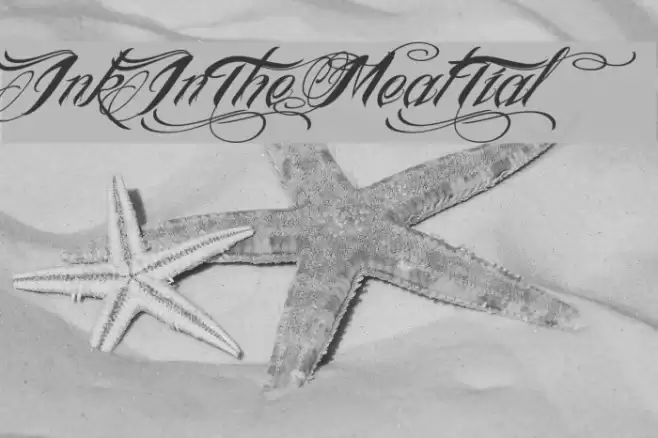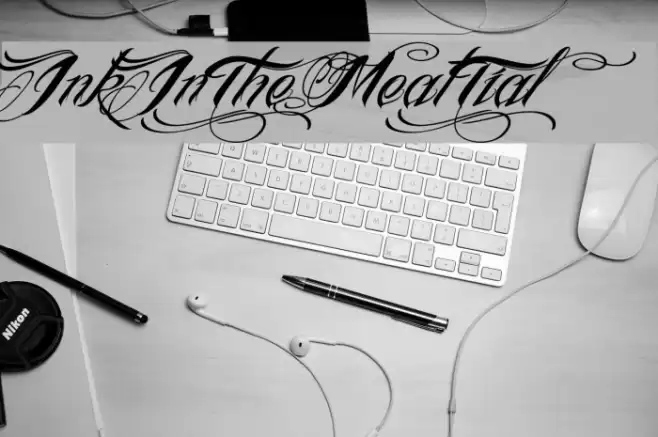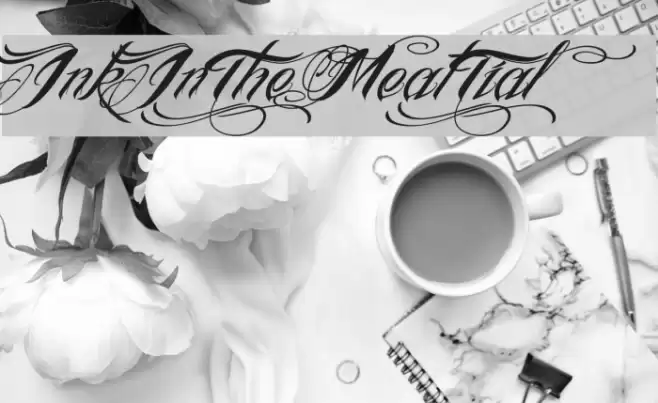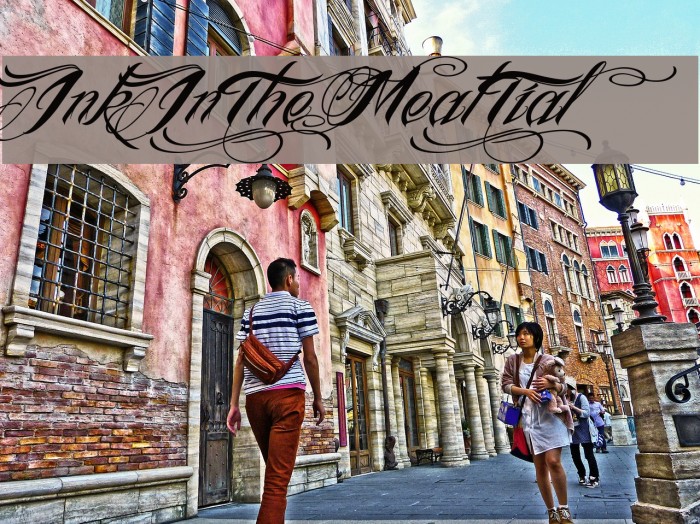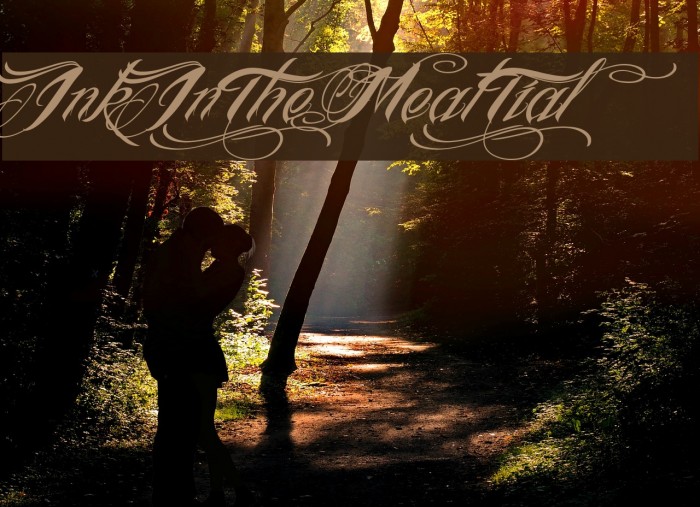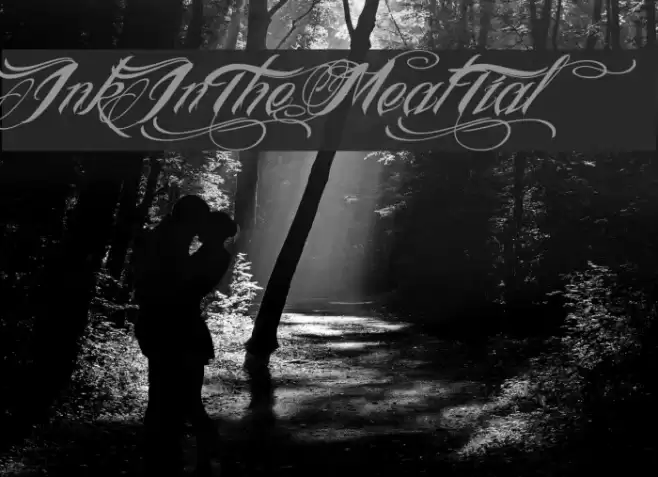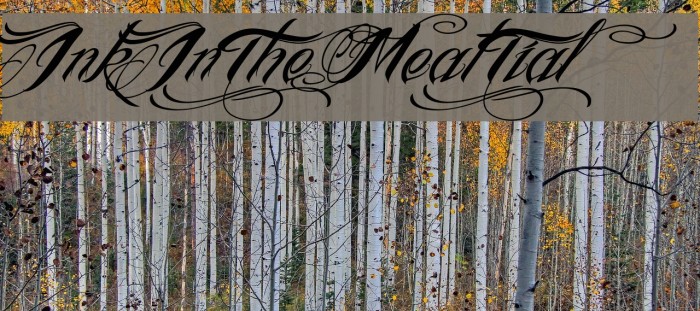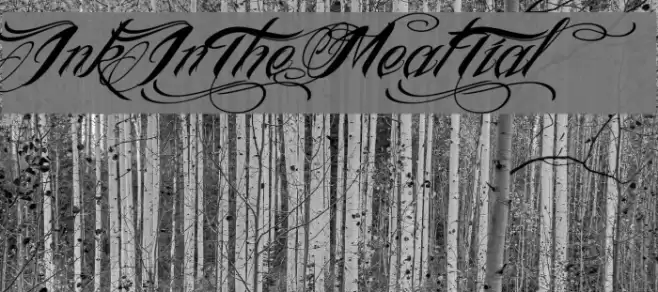
InkInTheMeat-Tial Font
InkInTheMeat-Tial Description
This font exudes a highly decorative and ornate style, characterized by its elaborate and intricate swirls and flourishes. The uppercase letters are particularly embellished, with each character featuring extended loops and curves that interlace with one another, creating a sense of movement and elegance. The lowercase letters maintain a more restrained yet still decorative appearance, offering a harmonious balance with the uppercase. The overall design is reminiscent of calligraphic handwriting, with a strong emphasis on artistic expression and visual impact. This font is ideal for projects that require a touch of sophistication and flair, such as wedding invitations, luxury branding, or artistic posters.
An ornate and decorative script font with intricate swirls and flourishes from Uncategorized fonts.
- Proposed Projects: Ideal for wedding invitations, luxury branding, artistic posters, and decorative headings.